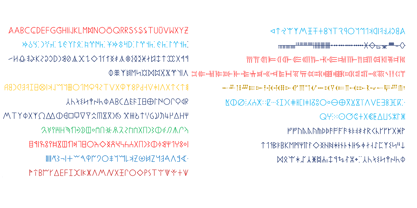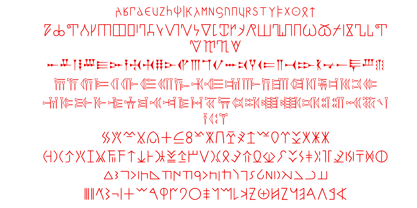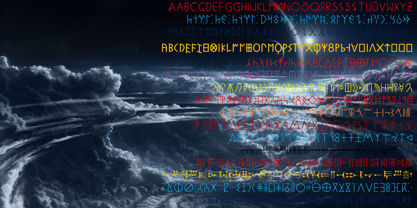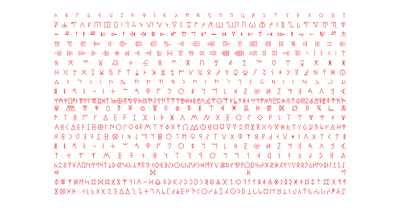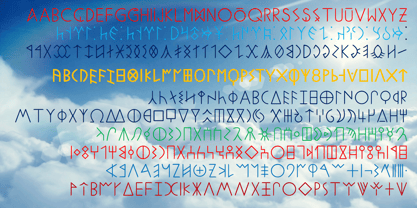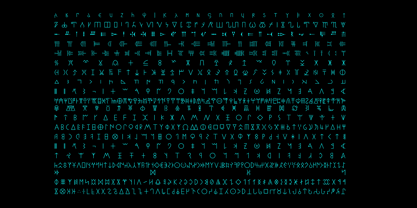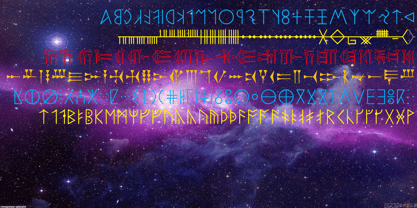
Ongunkan Antique Runic Unicode
von Runic World Tamgacı
Die Schriftfamilie Ongunkan Antique Runic Unicode wurde von Osman Nuri ALKAN entworfen und von Runic World Tamgacı veröffentlicht. Ongunkan Antique Runic Unicode enthält 1 Stile.
I've recreated ancient scripts with a modern interpretation using the Ongunkan Antique Runic Unicode font. I'm constantly adding new ancient scripts. Currently, the available ancient scripts are: Old Hungarian, Old Turkic, Runic, Old Italic, Old North Arabian, Old South Arabian, Old Persian, Old Permic, Brahmi, Carian, Lycian, Lydian, Phoenician, Tifinagh, Cypriot, Ogham, Ugaritic, Hatran, Linear B, and Gothic. I hope you'll use them in your beautiful work.
As my interest in rune writings grew, it became inevitable for me to make my own fonts. It was time to put all these years of hard work into action. This foundry, named Runic World Tamgacı, was prepared as a platform for the distribution of font studies developed on Old European Runic inscriptions, Old Asian Runic inscriptions, Old Hungarian Runic inscriptions, Runic inscriptions found in Africa and Arabian geography, and Italic inscriptions such as Etruscan and Iberian. These fonts, which have high aesthetic design and a full list of letters, will serve as a wide source especially for academic studies and amateur researchers, including derivative letters. It will also please enthusiasts interested in this field. The inventory of the foundry will be constantly updated and expanded with new additions to the fonts of these mysterious ancient inscriptions. These Runic studies were made from scratch by looking at the relevant sources.